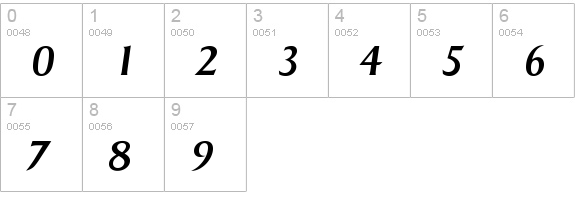
Sigvar-MediumIta font is a stunning and versatile typeface that exudes elegance and sophistication. Its unique blend of classic and modern design elements makes it perfect for a wide range of creative projects. With its medium weight and stylish italicized form, Sigvar-MediumIta font adds a touch of contemporary flair to any design. Whether you are creating eye-catching logos, elegant invitations, or stunning headlines, this font will make a lasting impression. The sleek and smooth curves of Sigvar-MediumIta font create a sense of fluidity and grace, while its legibility ensures that your message is easily conveyed. The carefully crafted letterforms are both visually pleasing and highly readable, making it a truly versatile typeface. One of the best parts about Sigvar-MediumIta font is that it is free! That's right, you can easily download this font for absolutely no cost at FontsMarket.com. It's incredible how such a high-quality and professionally designed font can be freely available to everyone. So why wait? Enhance your designs and captivate your audience with the timeless beauty of Sigvar-MediumIta font. Download it today from FontsMarket.com and let your creativity soar.